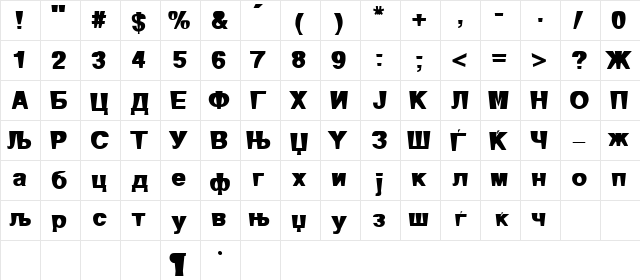
X_Atleta Heavy
Design Context for X_Atleta Typeface
X_Atleta offers clean, dependable letterforms without strong stylistic allegiance, making it a practical choice for designers who need flexibility.